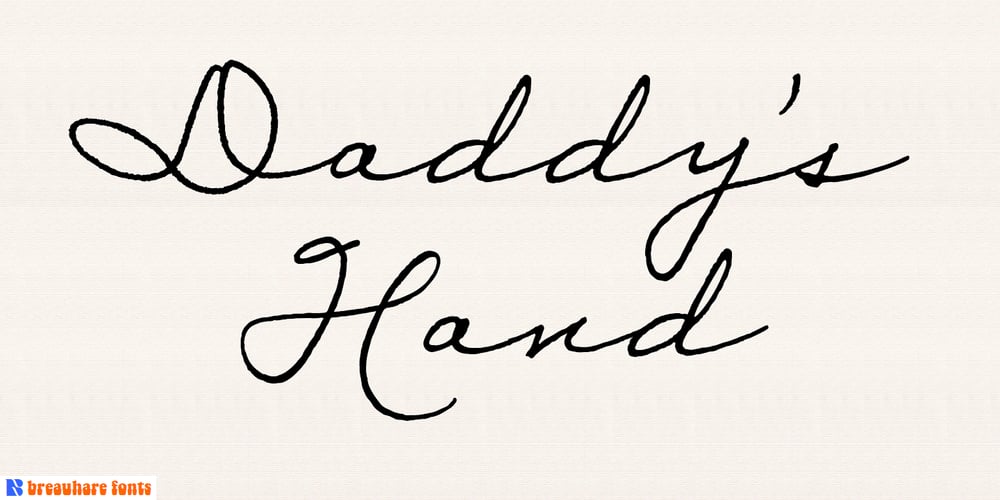
Daddy’s Hand Font Family was designed by Harry Warren and published by Breauhare. Daddy’s Hand contains 1 styles and family package options. Daddy’s Hand is based on the actual handwriting of my dad. He always prided himself on his fine penmanship, and to see him write was kind of like watching a ballroom dance–his pen would smoothly and elegantly waltz across the paper as he wrote, gliding effortlessly. I know if he were alive today he would be quite honored that his handwriting is now a font. This font can be used for all sorts of elegant occasions or advertising, and has ligatures & alternate letters. Digitized by John Bomparte.